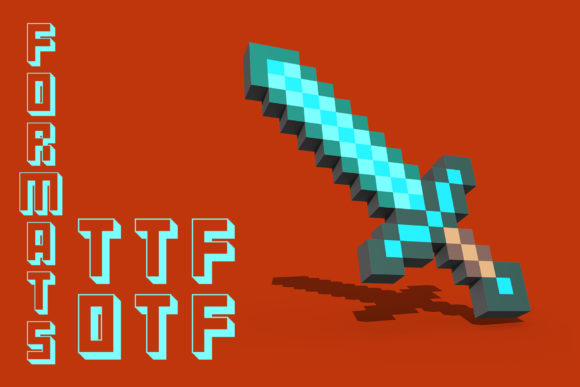
Creeper Font
Creeper is a cool, block, display font. This font is suitable for designs such as t-shirts, sportswear, logos, advertisements, clothing, and more.